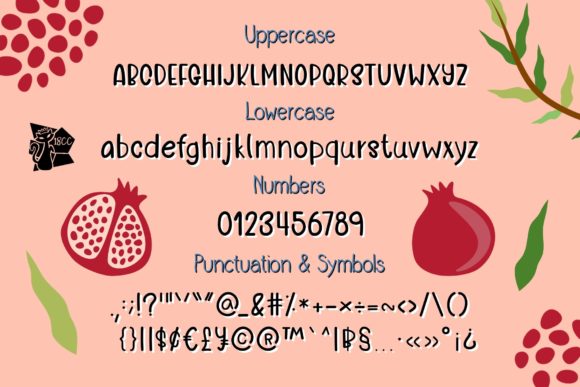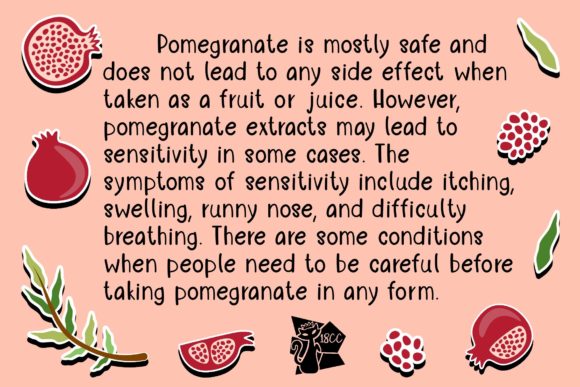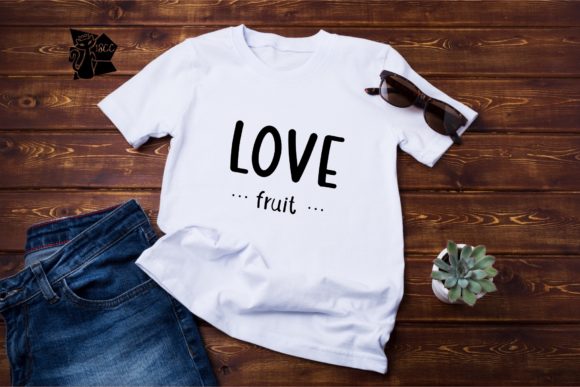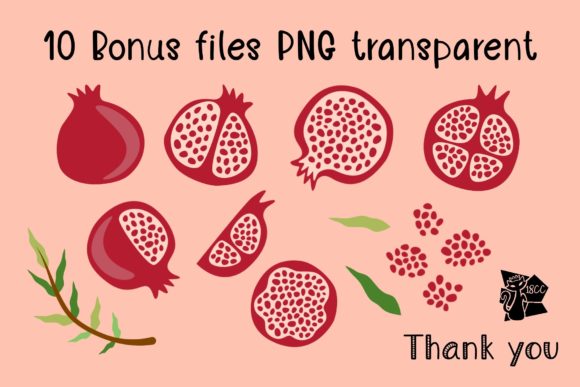
Introduction to Pomegranate Font
Have you ever been brainstorming ideas for a creative project, only to find the perfect font eludes you? It’s like trying to find the perfect key to unlock a hidden door – you know it’s out there, but where do you start looking? This is where the Pomegranate Font comes in, a game-changing design resource that will take your projects to the next level.
With its cool, simple, and adaptable design, the Pomegranate Font is the perfect addition to any creative endeavor. Whether you’re working on a free download or a high-end design project, this versatile font will add a fun and friendly touch that’s sure to delight your audience. And with its transparent background, you can easily customize it to fit your unique design vision.
As a designer, you know how valuable it is to have a reliable design resource that can elevate your work. The Pomegranate Font is just that – a high-quality font that will help you create stunning visuals that leave a lasting impression. So why settle for anything less? Download the Pomegranate Font today and unlock your full creative potential.
Key Features of Pomegranate Font
- Pomegranate Font is a high-quality, unique design resource ideal for creative projects.
- This font features a transparent background, allowing for easy customization and blending with other design elements.
- The font comes in a range of sizes, from 12pt to 72pt, allowing for versatility in design applications.
- Pomegranate Font boasts a high resolution of 300 DPI, ensuring crisp and clear text output.
- Its unique, hand-drawn style and intricate details make it a standout design resource for creative projects.
Honest Review: Pomegranate Font
I recently stumbled upon the Pomegranate Font and I must say it’s a great addition to any designer’s toolkit. The font is a free download, which is perfect for small creative projects or prototyping. Its high quality and versatility make it a valuable design resource.
One of the things that stands out about Pomegranate Font is its transparent background, which allows for seamless integration with any background image or color. This feature makes it a great choice for designers who want to create visually appealing and professional-looking designs.
Here are some of the things that work well with the Pomegranate Font:
- High-quality design with smooth lines and curves
- Transparency option for easy background integration
- Perfect for creative projects, such as branding, logos, and graphics
- Font size may become distorted at very large or very small sizes
- Limited character set, which may not be suitable for longer texts
Overall, I’m impressed with the Pomegranate Font and would recommend it to designers looking for a high-quality, free design resource. While it may have some limitations, its benefits far outweigh its drawbacks, making it a valuable addition to any design toolkit.
Tips for Getting the Most Out of the Pomegranate Font
For the best results, use the Pomegranate Font with a high-quality design resource, such as a high-resolution image or a well-designed template. You can also use the font with a transparent background to create a more creative look. Experiment with different font sizes and colors to find the perfect combination for your project.
The Pomegranate Font is a versatile design resource that can be used in a variety of creative projects, including wedding invitations, party decorations, and marketing materials. It’s also a great choice for designers who want a unique and eye-catching font for their design projects.
Does the Pomegranate Font come with a transparent background, and can I customize its appearance?
The Pomegranate Font does not come with a transparent background, but you can easily create one using your design software. As for customization, the font is designed to be highly versatile, allowing you to adjust its size, color, and style to fit your design needs. You can also experiment with different effects and combinations to create unique designs.